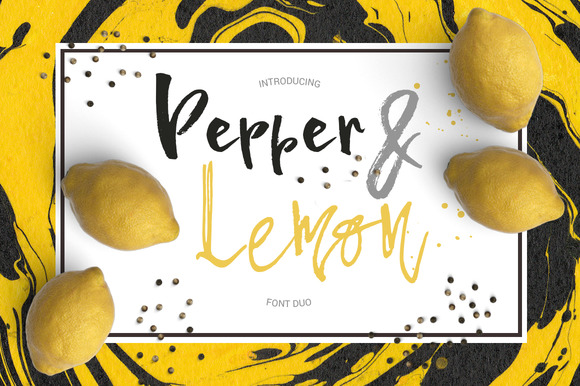
Introducing Pepper & Lemon—an electrifying font duo that captures the zest of life!
Pepper, the vivacious brush font, dances across the page with its bold, textured strokes. Its energetic personality adds a dash of spice to any design, leaving a lasting impression on your audience.
Lemon, its zesty partner, complements Pepper with its playful, hand-drawn charm. Its spontaneous flow adds a touch of whimsy and individuality, making your designs stand out from the crowd.
Together, these fonts create a harmonious blend of energy and creativity. Seamlessly transition between the two, using Pepper for captivating headlines and Lemon for captivating body text.
Unleash your imagination and watch as Pepper & Lemon transform your designs into masterpieces. Whether it's creating eye-catching logos, vibrant social media posts, or stunning invitations, these fonts will add a burst of flavor to your creative endeavors.
Here's why Pepper & Lemon are a must-have in your font collection:
- **Unique Charm:** Pepper & Lemon's distinct styles set them apart from the ordinary, ensuring your designs captivate attention and leave a lasting impression.
- **Versatile Duo:** With Pepper's bold texture and Lemon's playful flow, this font duo offers endless possibilities for creative expression.
- **Effortless Creativity:** Seamlessly switch between Pepper and Lemon to create captivating headlines, engaging body text, and eye-catching graphics.
- **Perfect for Personalization:** Add a personal touch to your projects with Pepper & Lemon. They're perfect for creating custom logos, quotes, and invitations that reflect your unique style.
- **Storytelling Power:** Pepper & Lemon's expressive nature lends itself beautifully to storytelling. Use them to craft narratives that resonate with your audience, evoking emotions and creating connections.